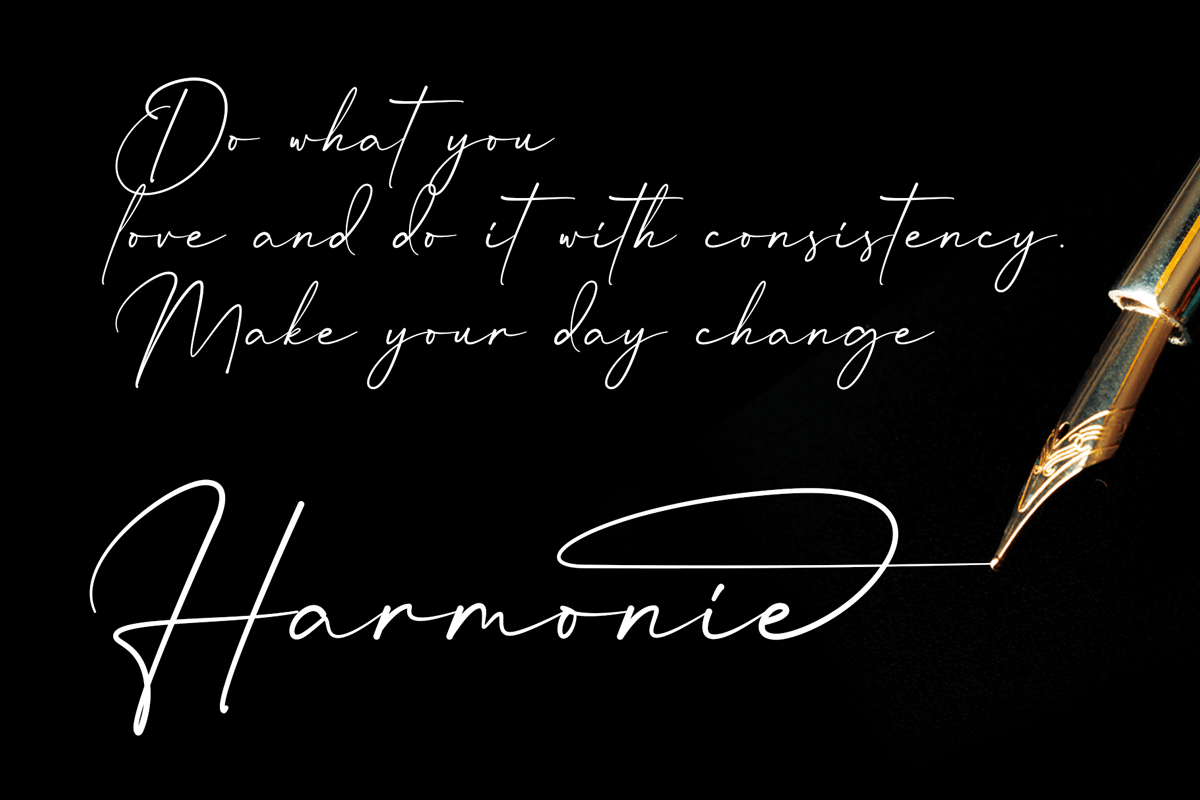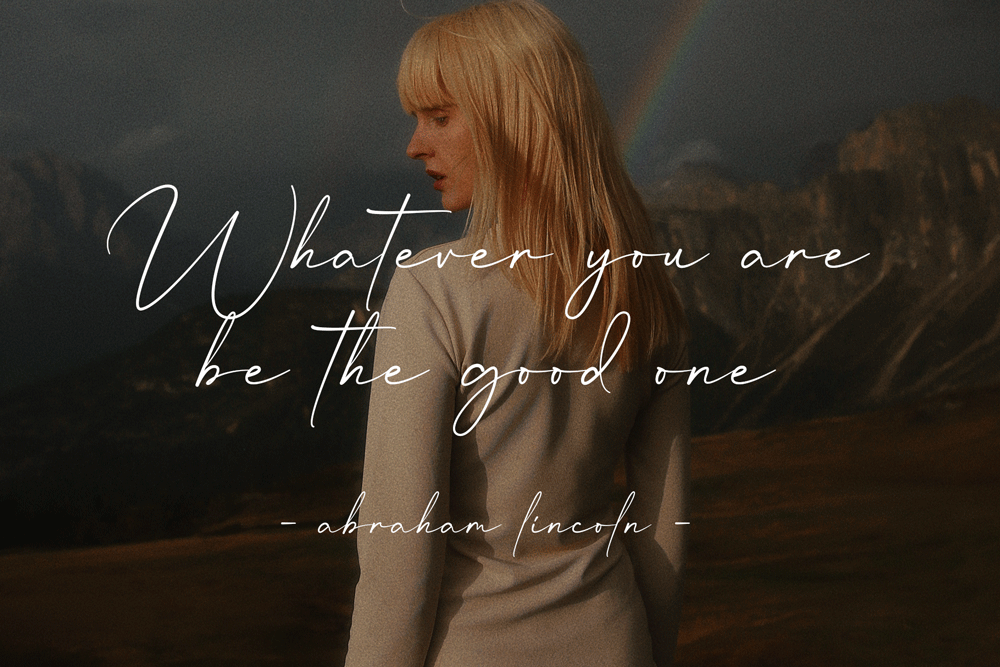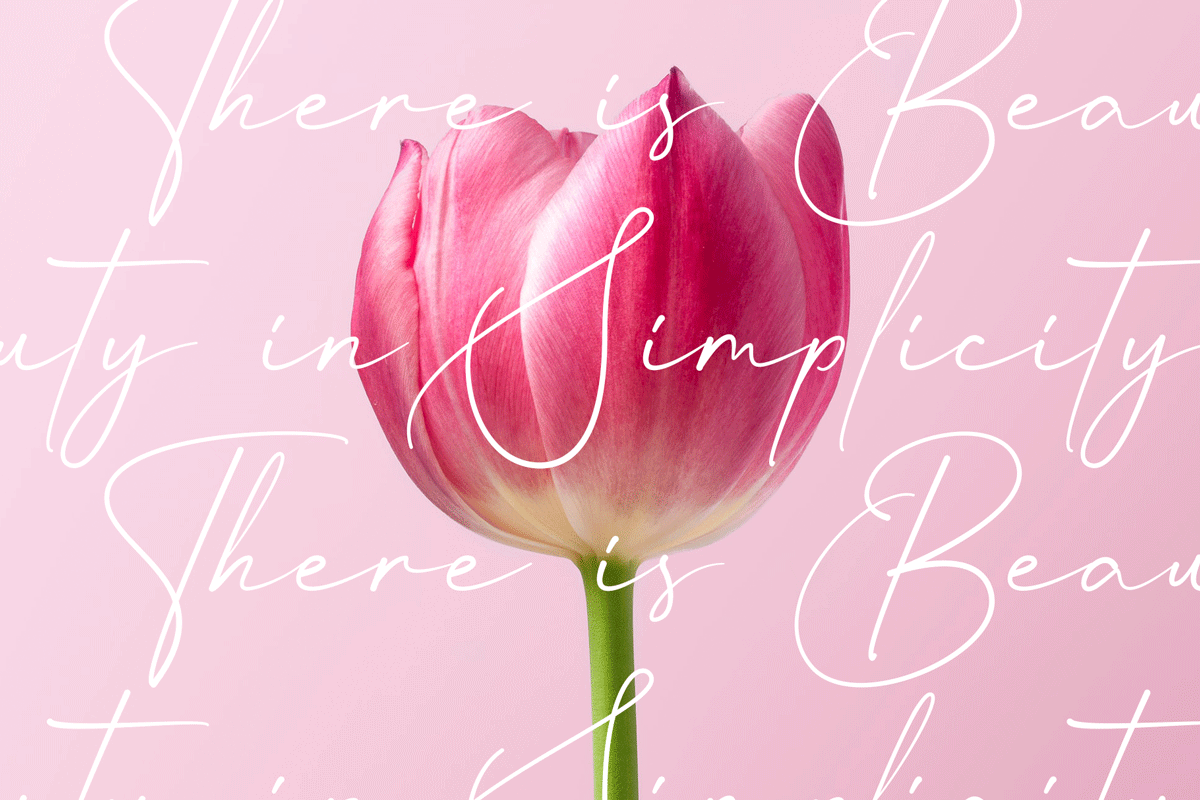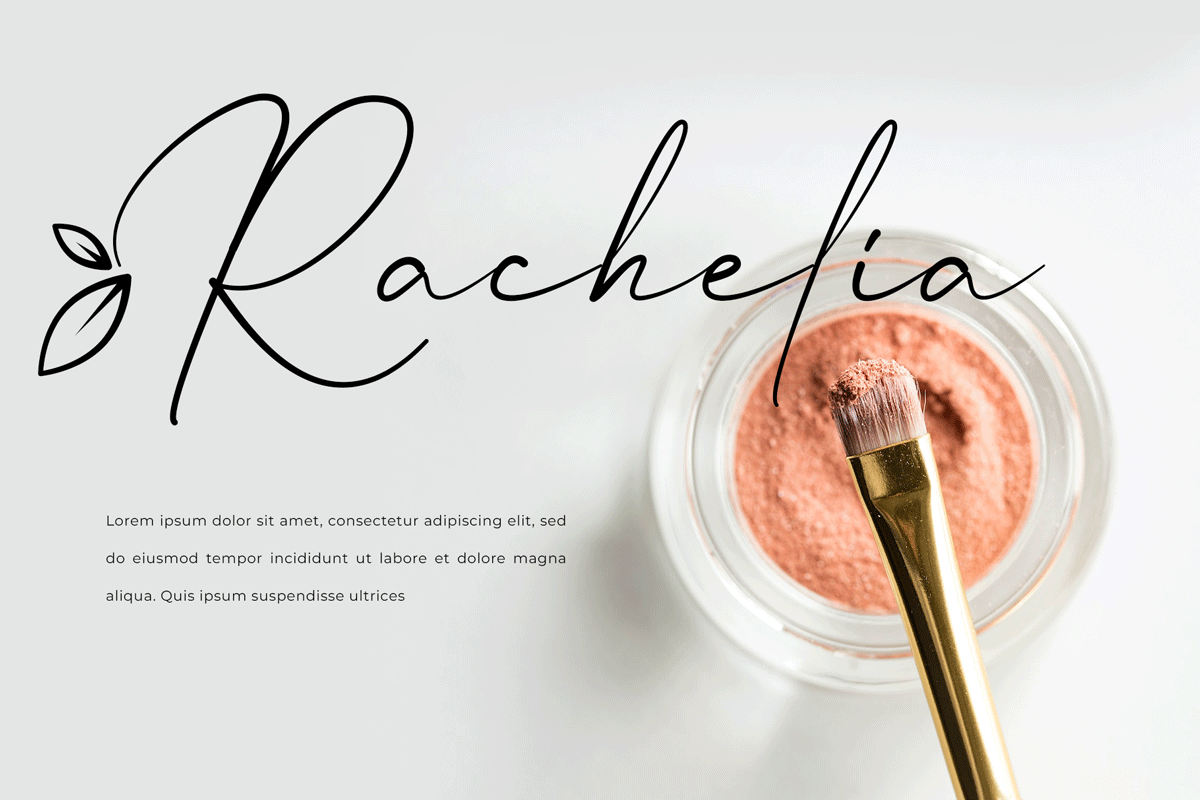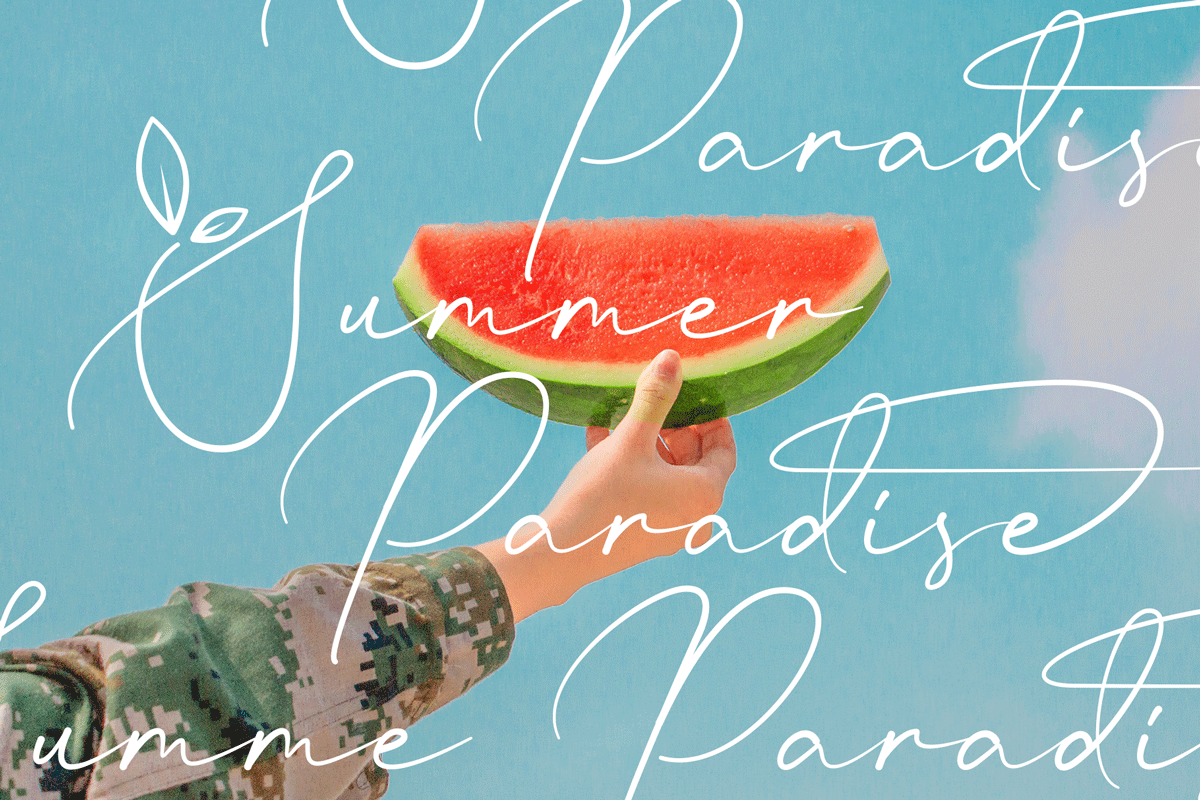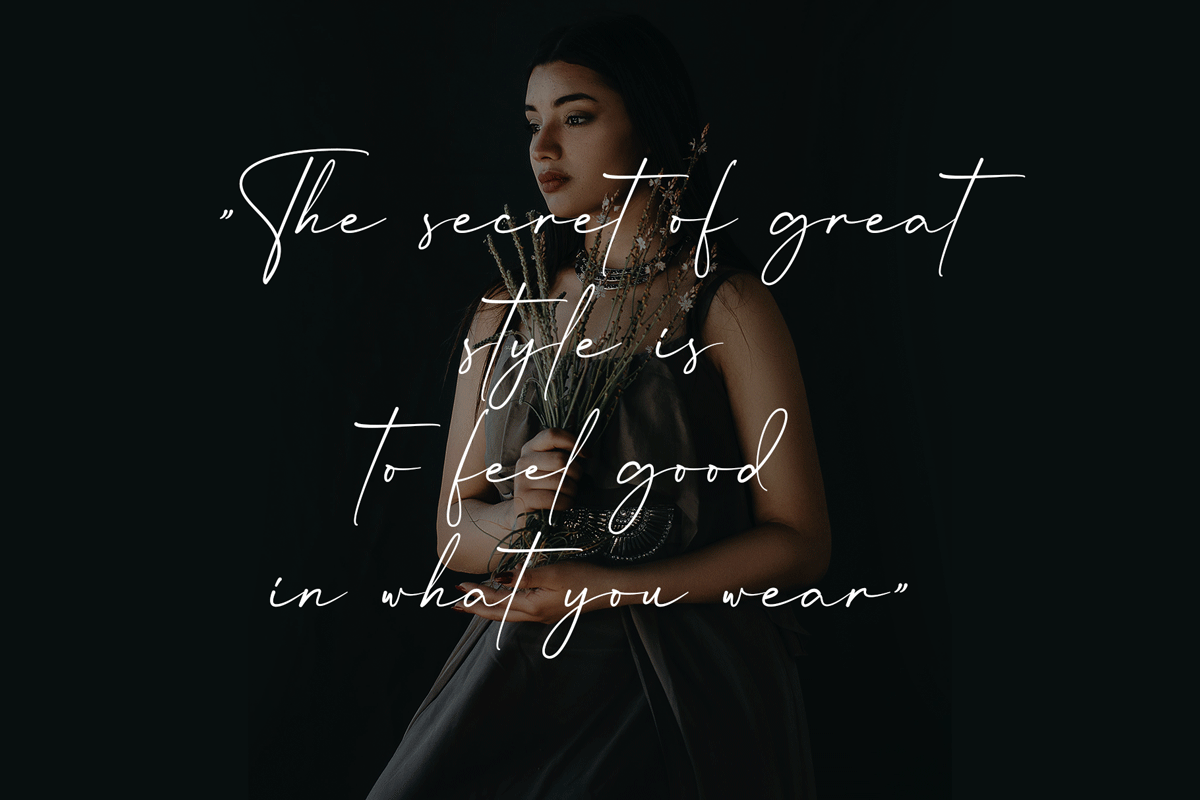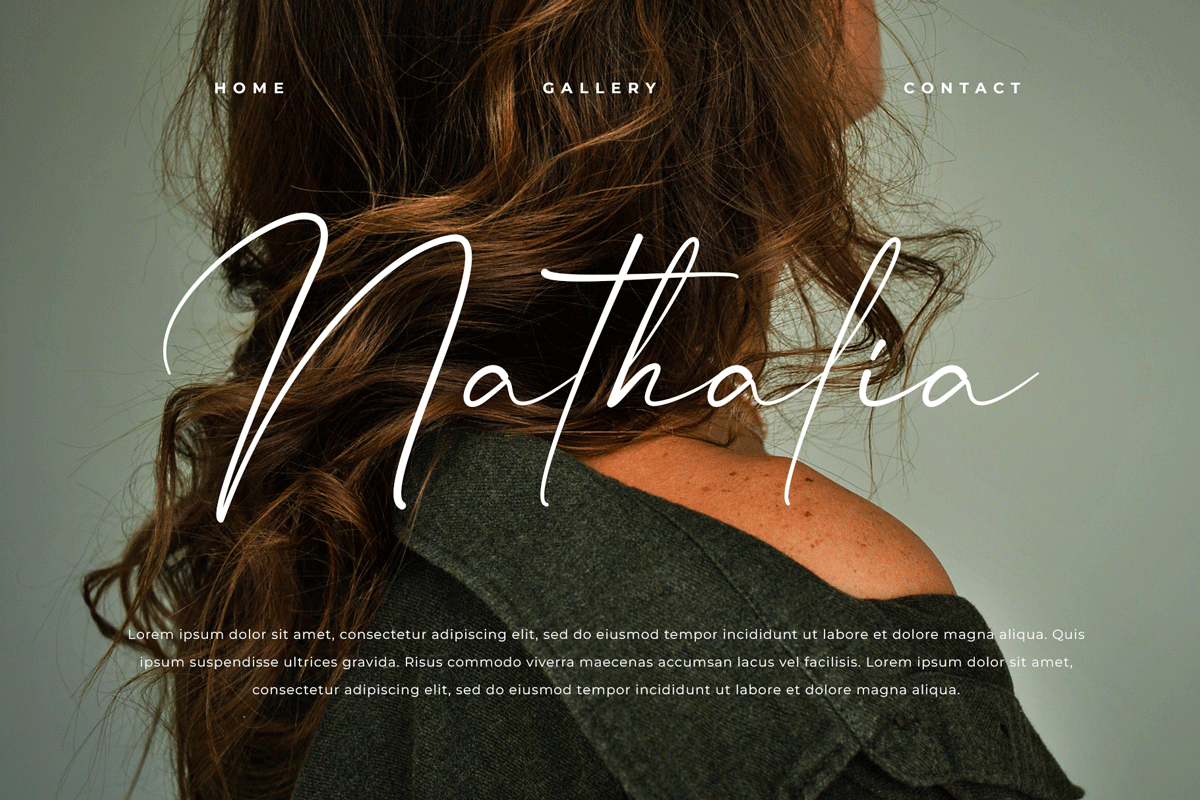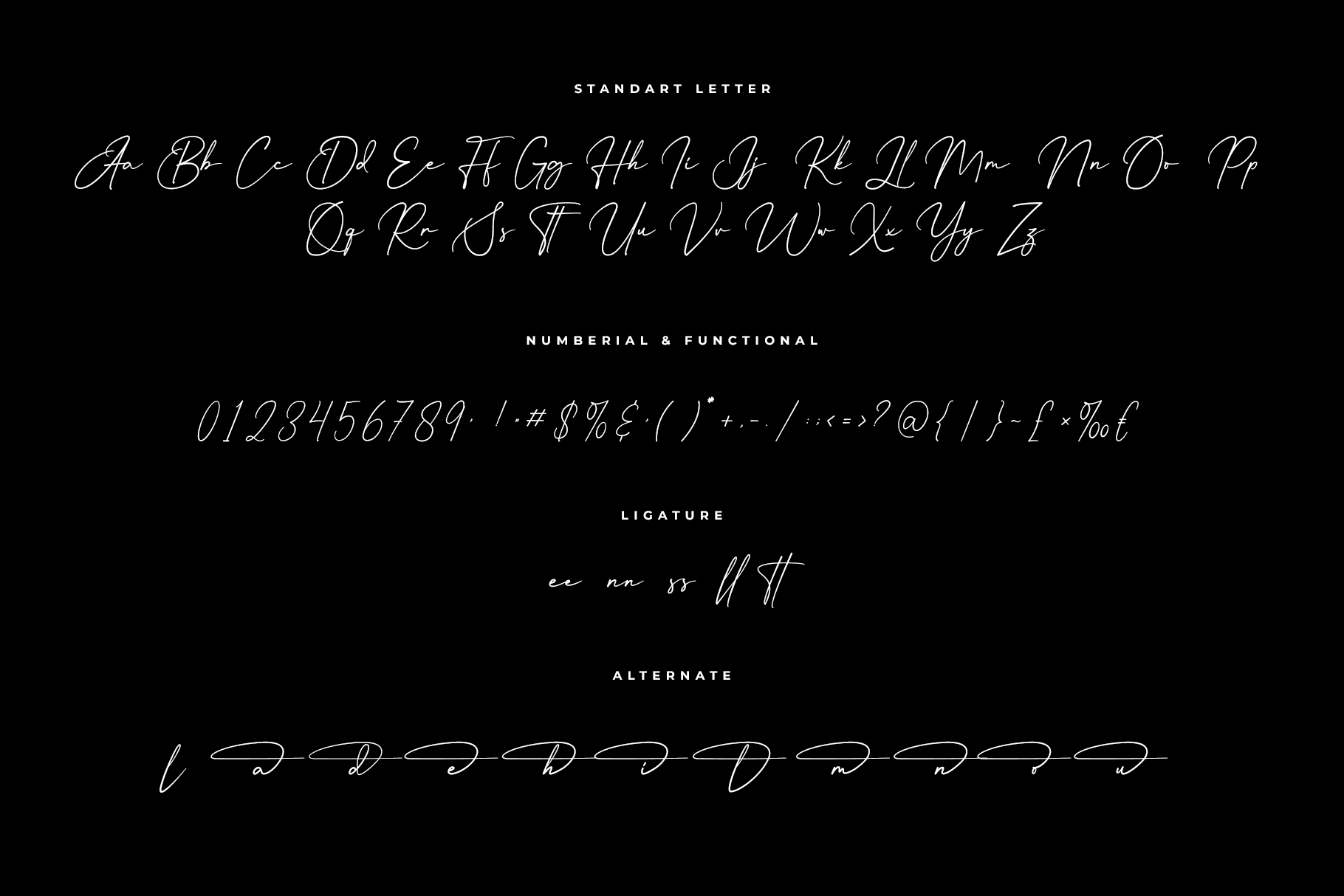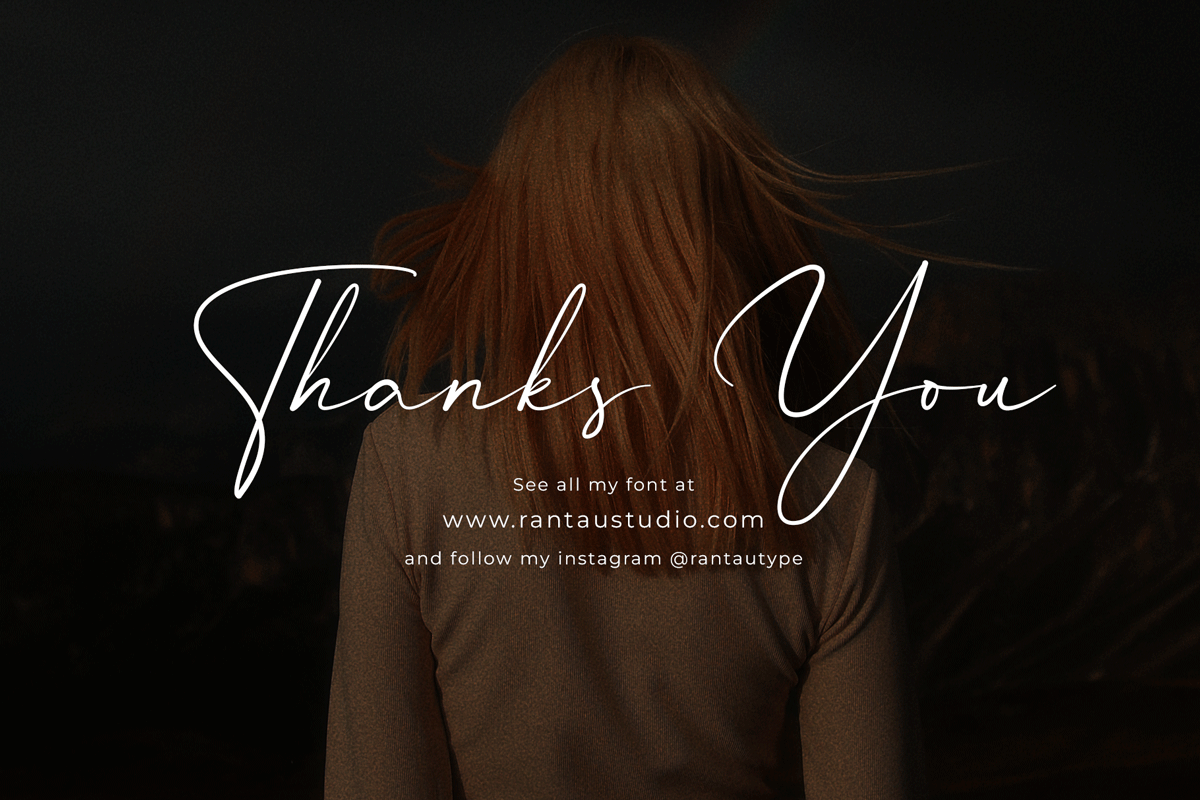
Mrs Alexandra Elegant Signature font
Mrs Alexandra is elegant style which can be interpreted professional. we keep this font looks elegant, luxury, premium, modern, readable, stylish, feminine, girly, catchy and easy to use. Clafita Miller is the great choice for watermark on photography, signature or signature logo design, quotes, album cover, magazine, business card and many other design project. Clafita Miller here to make your work to high level!!!
• Ligature and Alternate